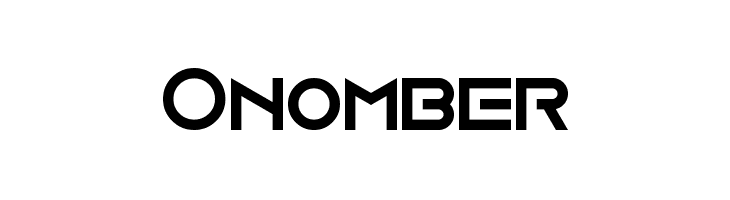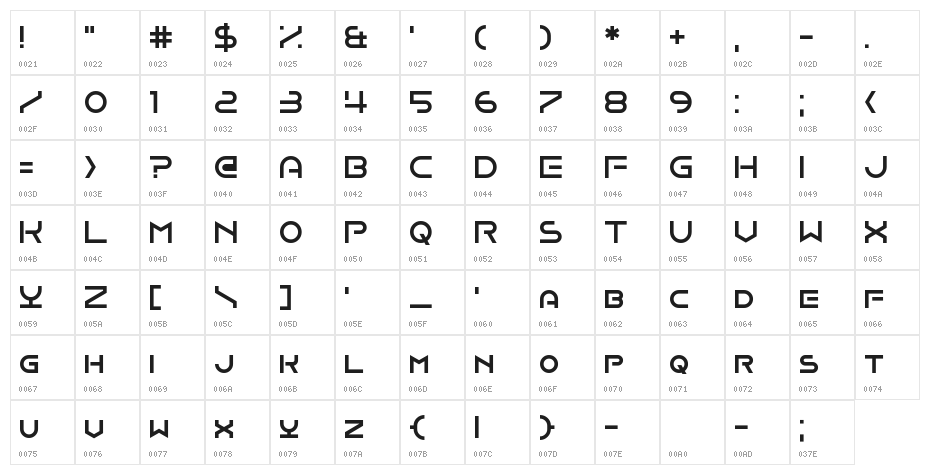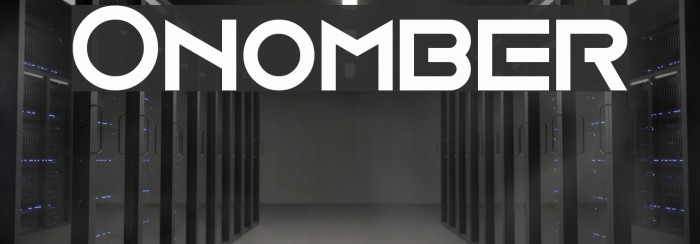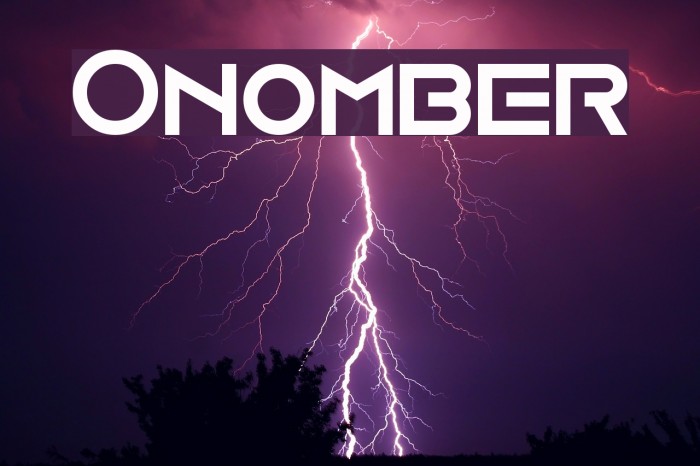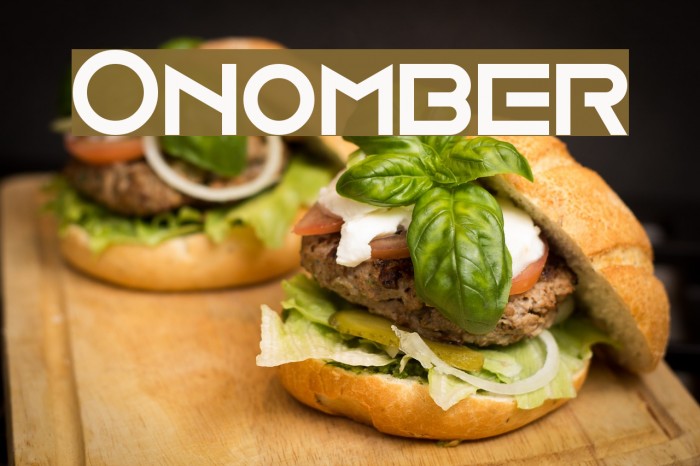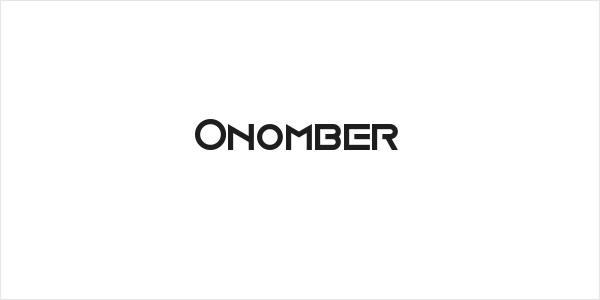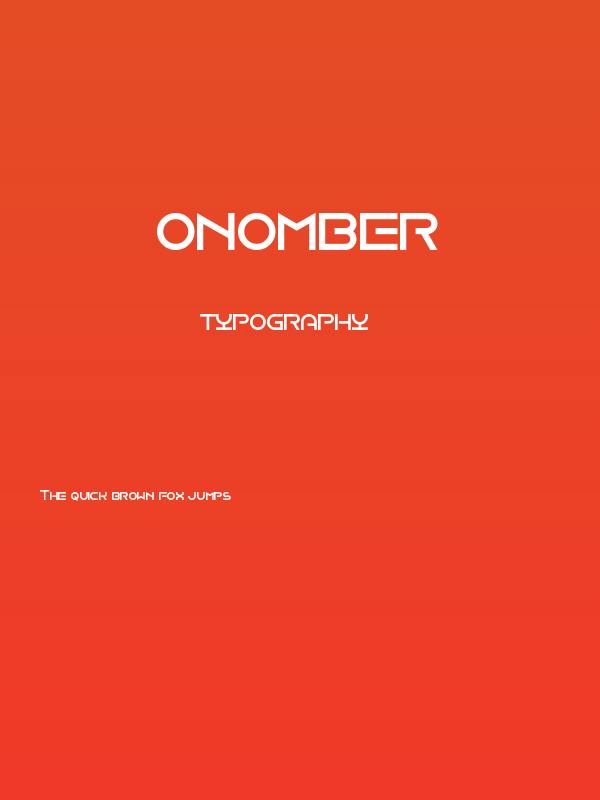
Onomber Font
Onomber Description
This font features a modern and geometric design with a futuristic appeal. The characters are constructed with bold, clean lines and a consistent stroke width, giving it a strong and assertive presence. The uppercase letters have a distinctive angular style, while the lowercase letters maintain a similar geometric form. The numerals are equally bold and align seamlessly with the overall design. Special characters are designed to match the font's bold and modern aesthetic, making it suitable for a variety of digital and print applications.
| Overall Style | Futuristic, Geometric |
| Proposed Projects | Ideal for technology branding, digital media, posters, and futuristic-themed projects. |